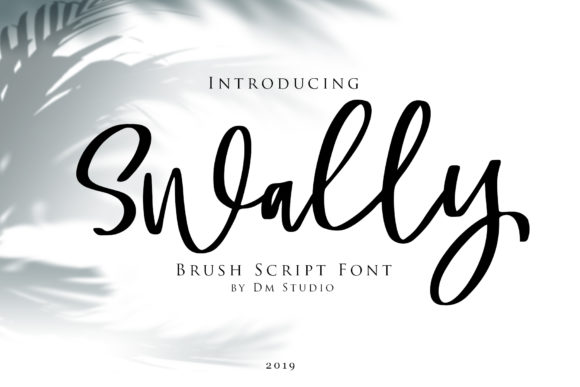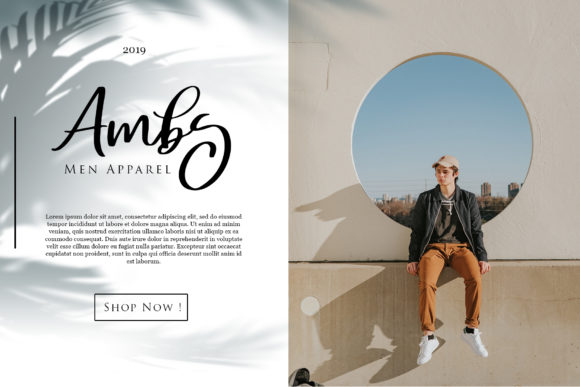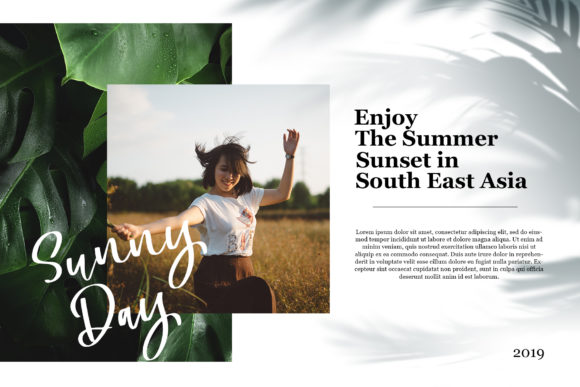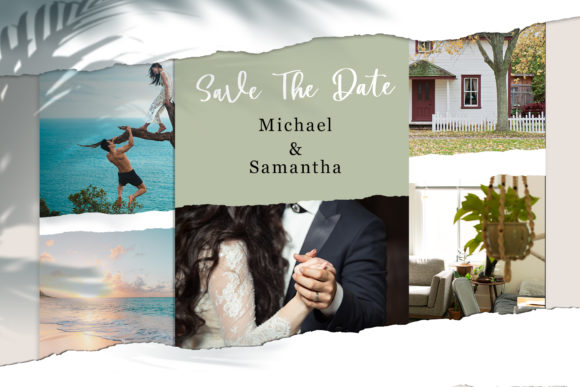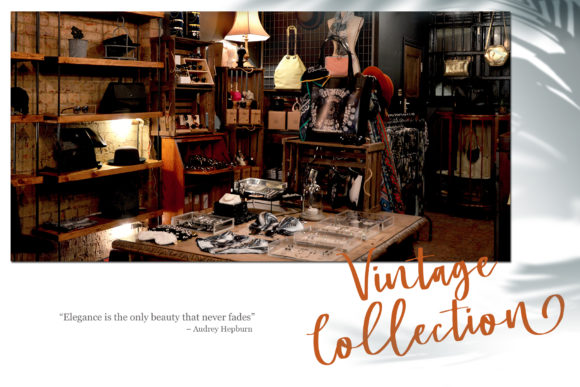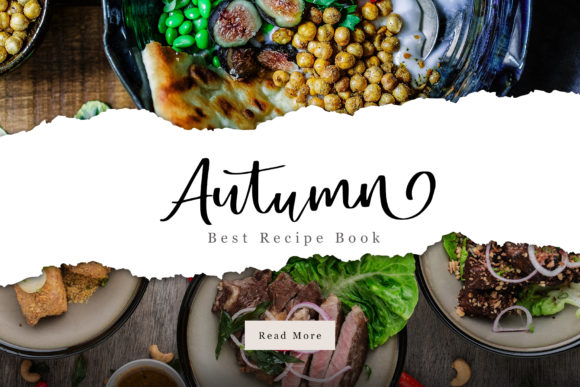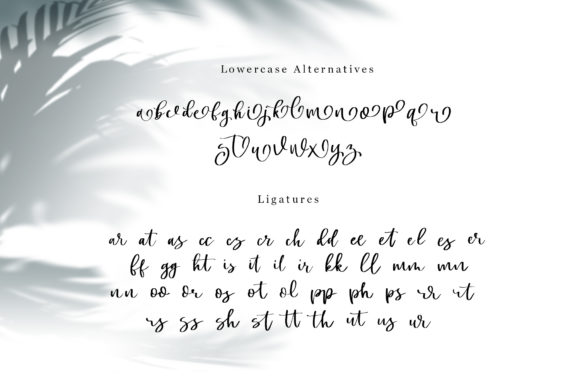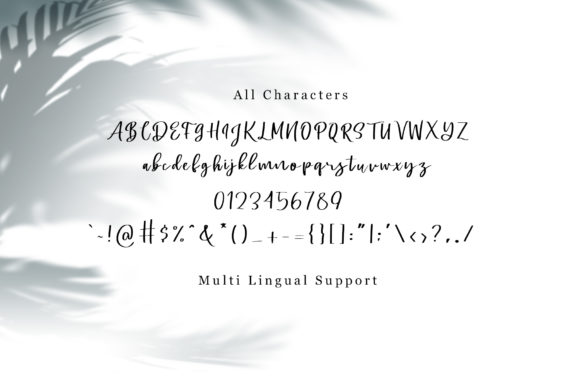
HomeScript FontsSwally Font Script Fonts Swally Font FacebookXPinterestWhatsApp Swally Font Poster 2 Swally Font Poster 3 Swally Font Poster 4 Swally Font Poster 5 Swally Font Poster 6 Swally Font Poster 7 Swally Font Poster 8 About Swally Font Swally is a modern and sweet handwritten font with a uniquely lovely style. DOWNLOAD NOW People also explored Madstick Font Steel Blue Bella Canvas 3001 Tee Mockup Creamy Font Unubap Font Birgitta Font Lemonade Font Bohemia Font Give Thanks Font Cutebold Font 351 0 TagsSwally Font Previous articleRosemary FontNext articleMistletoes Font LEAVE A REPLY Cancel reply Comment: Please enter your comment! Name:* Please enter your name here Email:* You have entered an incorrect email address! Please enter your email address here Website: Save my name, email, and website in this browser for the next time I comment. Personal Use Free Splatter Splash Personal Use Free Read more about this font Loopina Personal Use Free Read more about this font Snaily Personal Use Free Read more about this font Hommy You Personal Use Free Read more about this font BLOG The 10 Best Handwriting Fonts to Add Personality to Your Designs 10 of the Best Handwriting Fonts for Adding Personality to Your Designs There will undoubtedly be no other better choice than handwriting fonts to give... Top 7 Google Fonts Alternatives for Faster and Privacy-Friendly Web Design (2025) Free Fonts Risk: Why Free Fonts Can Be Dangerous for Designers Using Fonts in Digital Marketing: Tips to Strengthen Your Brand Identity